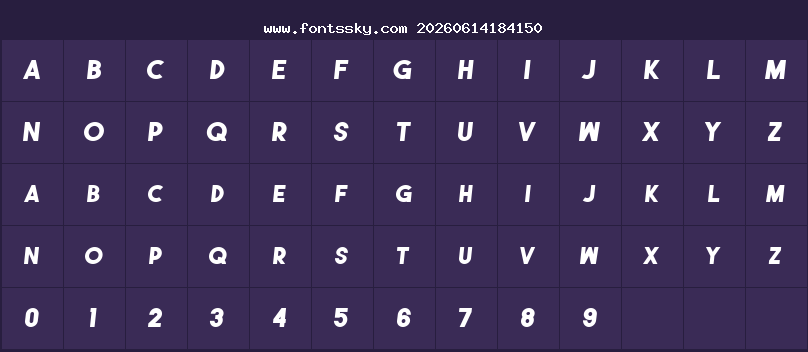
Genuine Preview
• Font Name: Genuine
• Full Font Name: Genuine
About Genuine.ttf
Genuine.ttf is a modern, elegant sans-serif font designed for ultimate readability and visual harmony. Perfect for branding, headlines, web design, and print materials.